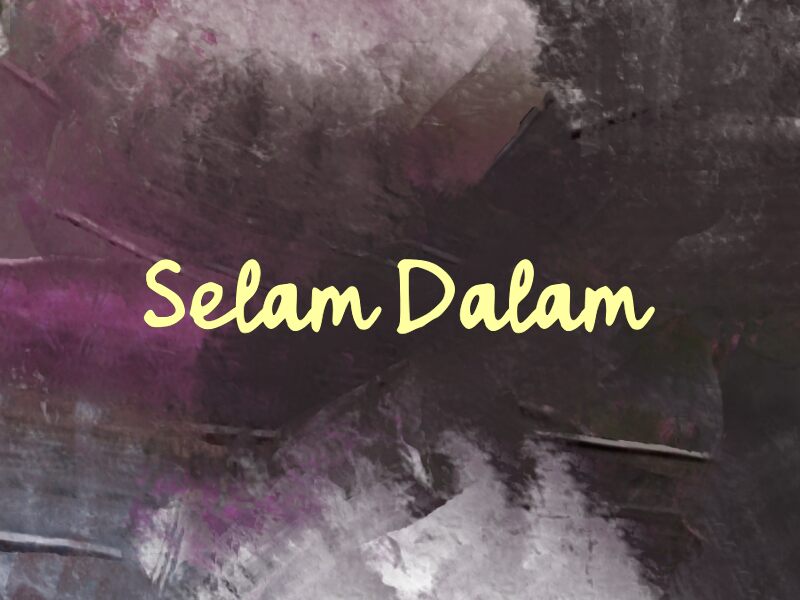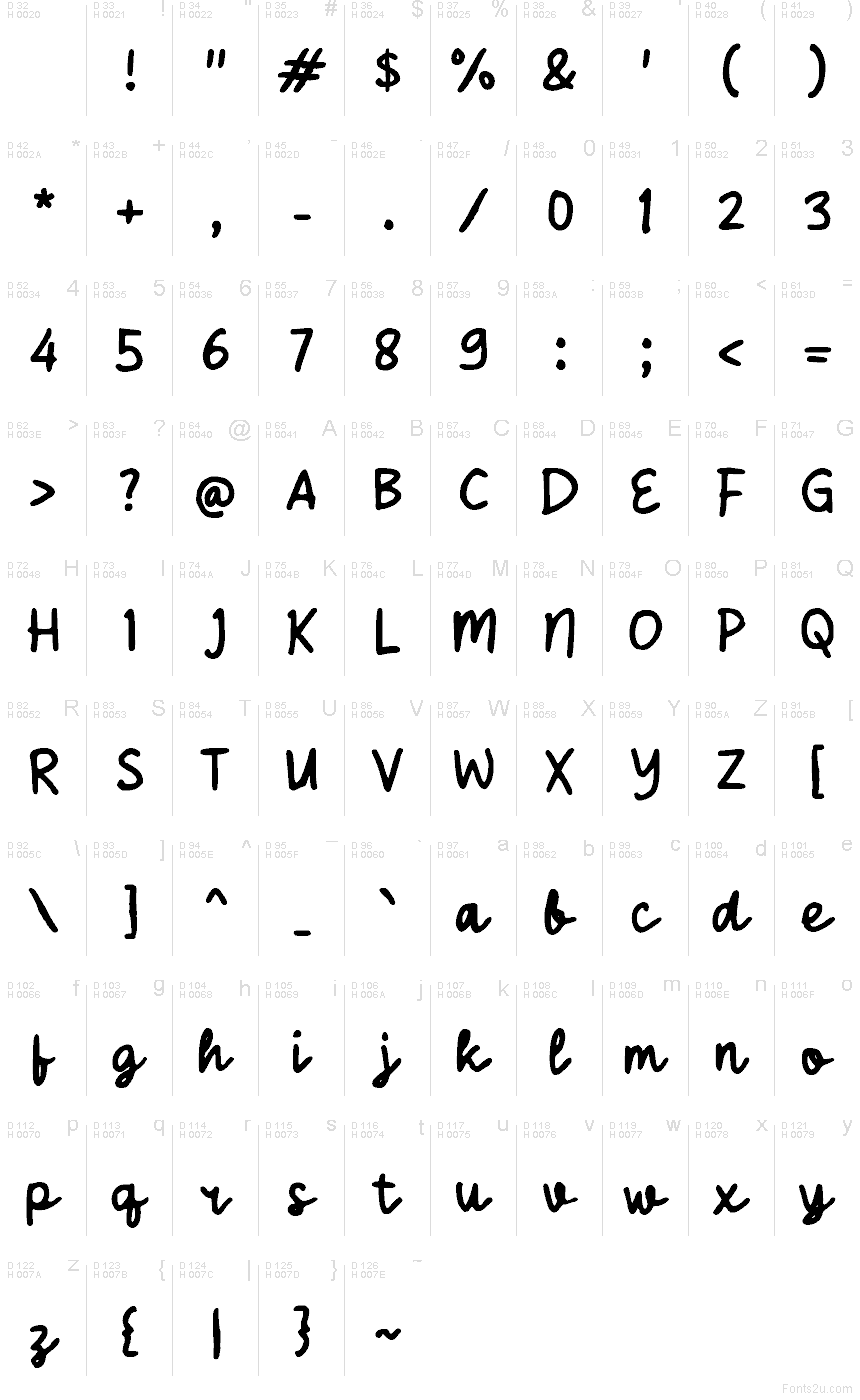
Selam Dalam
Selam Dalam font by wepfont.com is a free handwritten font that captures the feel of a quick, confident note written with a soft brush pen. Letters curve smoothly into each other with just enough texture to feel personal, but the shapes stay clean and open, so words are easy to scan at a glance. It strikes a rare balance between casual warmth and everyday readability, giving you a friendly script that doesn’t fall apart in longer text lines.
Using Selam Dalam, you can bring a relaxed, human touch to social media graphics, quote posts, product packaging, greeting cards, posters, and logo wordmarks. This free font shines on bold titles and short phrases, while still holding up for smaller subheads. Pair it with a simple sans serif for body copy and let Selam Dalam handle the expressive moments in your layout.